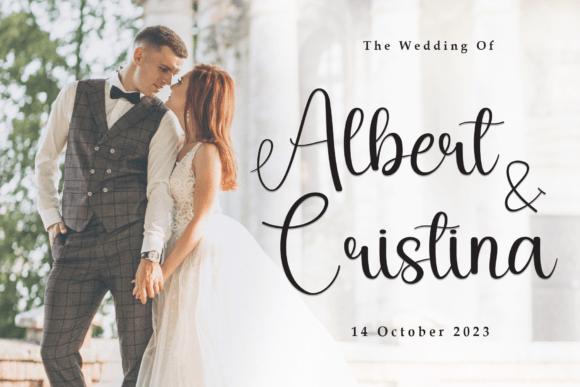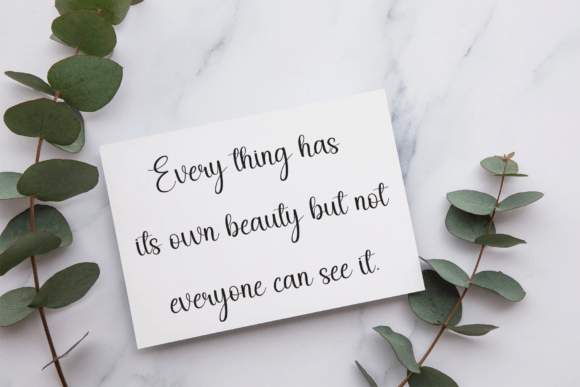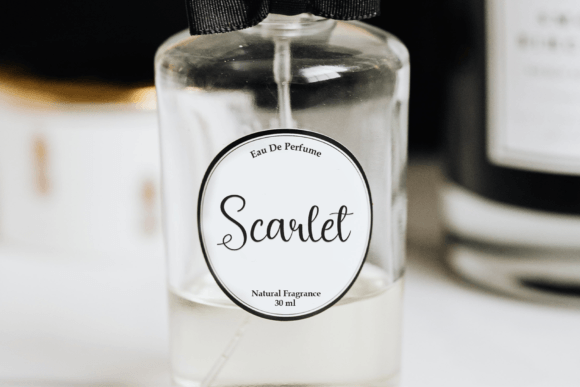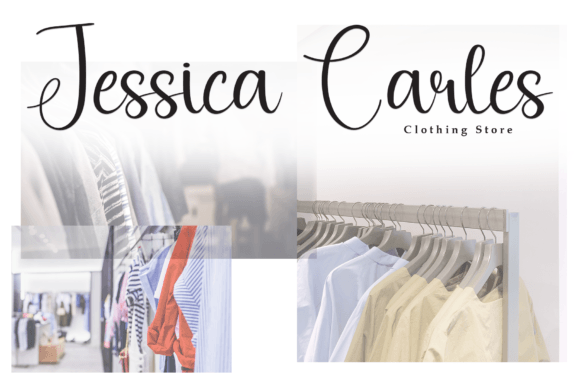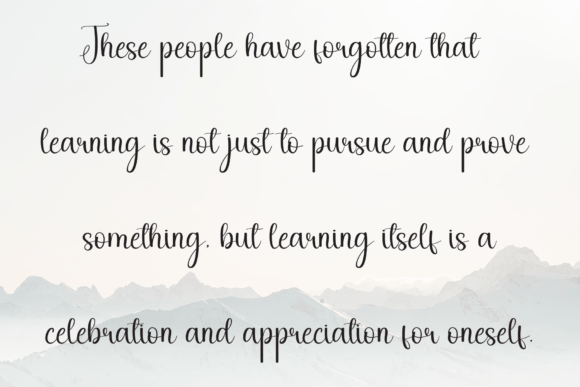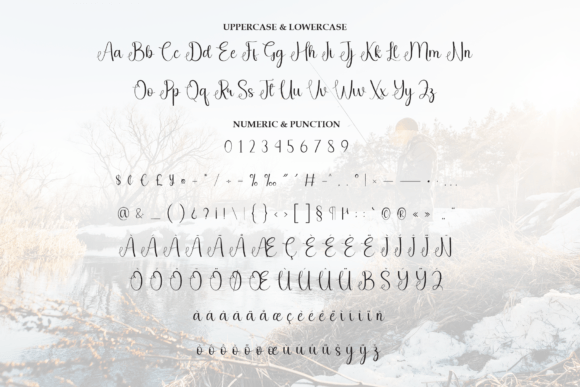
Fishing Font: A Sweet and Friendly Handwritten Display Font
Are you looking for a font that can add a touch of whimsy and fun to your designs? Look no further than the Fishing Font! This sweet and friendly handwritten display font is perfect for creating eye-catching wedding invitations, cards, and other designs that need a playful twist.
What is Fishing Font?
Fishing Font is a handwritten display font that is designed to be both cute and fun. Its unique and charming lettering style makes it perfect for a variety of design projects, from wedding invitations and cards to posters and social media graphics.
Characteristics of Fishing Font
Fishing Font has several characteristics that make it stand out from other fonts. Some of its key features include:
- Cute and Fun: Fishing Font has a playful and whimsical feel that makes it perfect for designs that need a fun touch.
- Handwritten: This font has a handwritten feel that gives it a personal and unique touch.
- Display Font: Fishing Font is designed to be used as a display font, making it perfect for headlines, titles, and other prominent text elements.
- Sweet and Friendly: The font has a sweet and friendly feel that makes it perfect for designs that need to convey a sense of warmth and approachability.
Uses for Fishing Font
Fishing Font is a versatile font that can be used for a variety of design projects. Some of the most popular uses for this font include:
- Wedding Invitations: Fishing Font is perfect for creating unique and eye-catching wedding invitations that set the tone for a fun and playful wedding.
- Cards: This font is great for creating fun and playful cards for birthdays, holidays, and other special occasions.
- Posters: Fishing Font can be used to create eye-catching posters for events, promotions, and other marketing campaigns.
- Social Media Graphics: This font is perfect for creating fun and engaging social media graphics that stand out from the crowd.
Why Choose Fishing Font?
There are many reasons why designers and crafters choose Fishing Font for their projects. Some of the top reasons include:
- Unique and Eye-Catching: Fishing Font has a unique and eye-catching style that sets it apart from other fonts.
- Easy to Read: Despite its playful feel, Fishing Font is easy to read and can be used for both short and long text elements.
- Versatile: This font can be used for a variety of design projects, from wedding invitations to posters and social media graphics.
- Fun and Playful: Fishing Font adds a fun and playful touch to any design, making it perfect for projects that need a bit of whimsy.
Tips for Using Fishing Font
Here are a few tips for using Fishing Font in your designs:
- Use it as a Display Font: Fishing Font is designed to be used as a display font, so use it for headlines, titles, and other prominent text elements.
- Pair it with Other Fonts: Fishing Font can be paired with other fonts to create a unique and eye-catching design.
- Experiment with Colors: This font looks great in a variety of colors, so don’t be afraid to experiment and find the perfect color for your design.
- Keep it Simple: While Fishing Font is a playful font, it’s best to keep your design simple and clean to ensure that the font is the focal point.
Fishing Font is a sweet and friendly handwritten display font that is perfect for adding a touch of whimsy and fun to your designs. With its unique and eye-catching style, this font is ideal for wedding invitations, cards, posters, and social media graphics. Whether you’re a designer or crafter, Fishing Font is a great choice for any project that needs a playful twist.